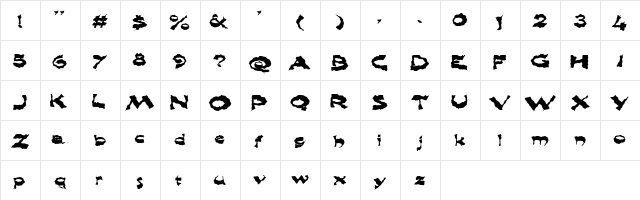
ShlopHappy Regular
Design Context for ShlopHappy Typeface
ShlopHappy is a composed and adaptable typeface that performs quietly and consistently across a wide range of design contexts.